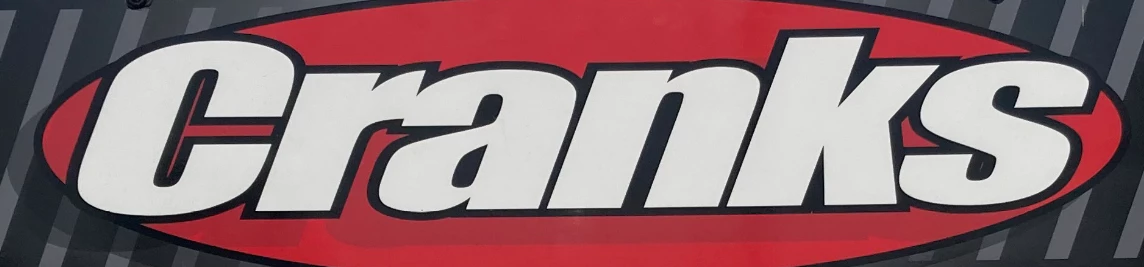
does anyone know what font this might be? I really like it!
To me it looks like Impact or something very similar. However, it's been manually slanted (not a real italics) + spacing reduced +some added effects so it's difficult to tell.